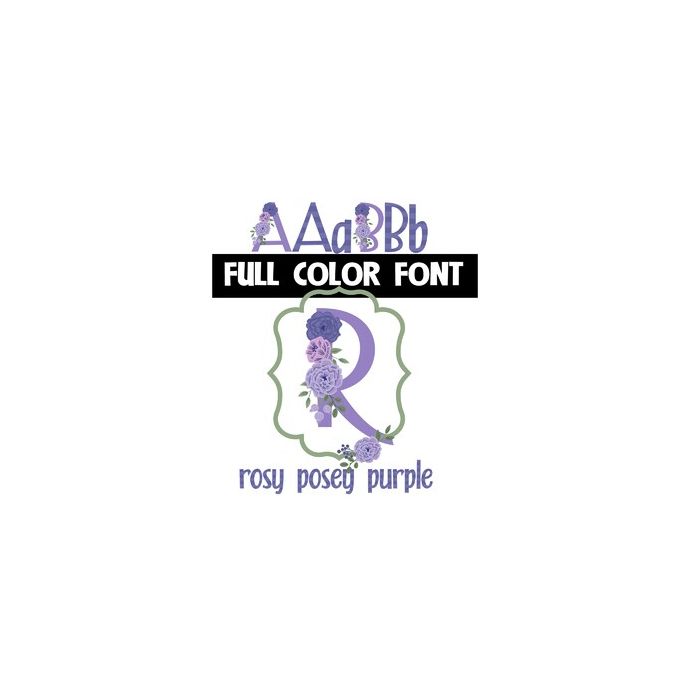
This full-color font features beautiful, lavender flowers on the uppercase. Use the ` symbol to type the frame shape. Use the lowercase for a striped uppercase without flowers and access a lower "alt" case through your system's character map or Silhouette's glyph map.